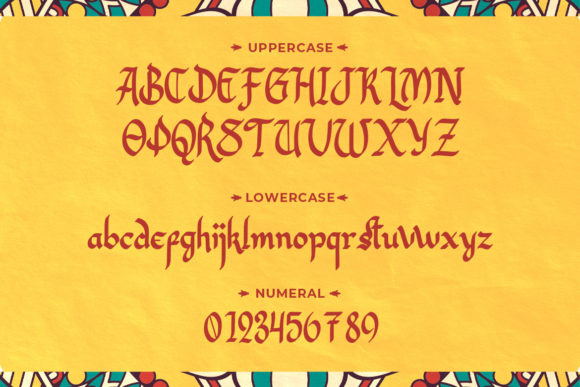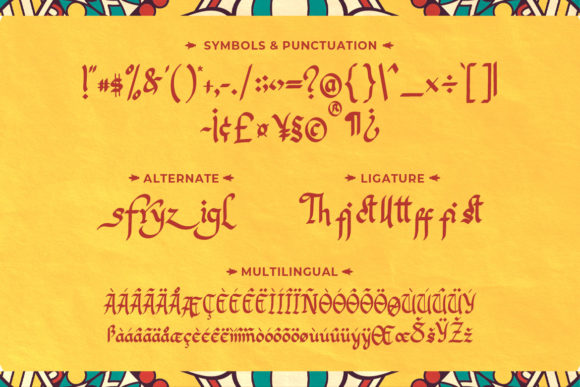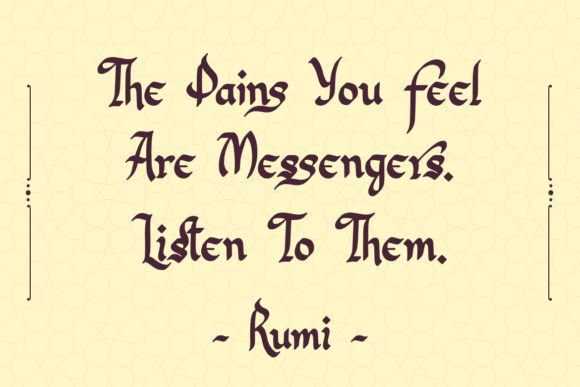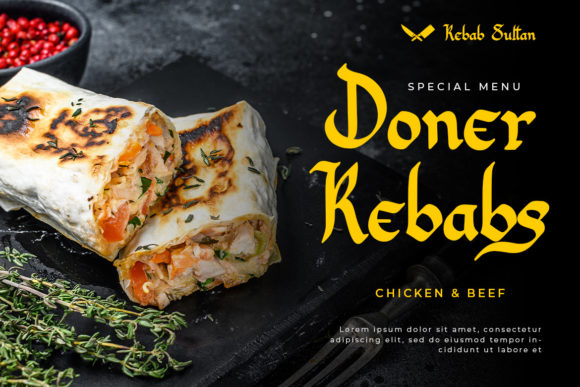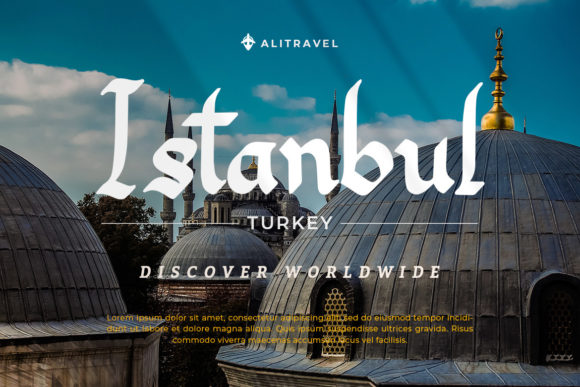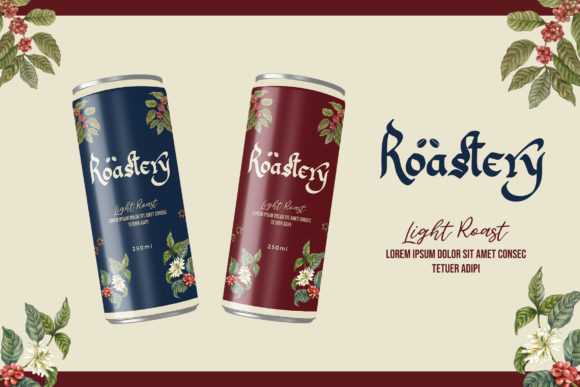
Introduction to King Malik Font
Have you ever stared at a blank page, surrounded by scribbled ideas and half-finished sketches, waiting for that one spark to ignite your creative project? For designers, finding the perfect font can be the difference between a mediocre design and a masterpiece. That’s where King Malik Font comes in – a stunning display font that embodies the essence of Turkish culture and style.
This high-quality font is not only a valuable design resource but also a free download, making it accessible to creatives of all levels. With its unique aesthetic, King Malik Font is perfect for branding logos, themes, and any other project that requires a touch of sophistication. Plus, its transparent background allows for seamless integration with any design element, making it a versatile choice for designers who demand the best.
Key Features of King Malik Font
- High-quality, professional font design for creative projects, available for free download.
- Unique, elegant script font with a transparent background, perfect for adding a touch of sophistication to your design.
- Designed to be versatile and easy to use, making it a valuable design resource for professionals and hobbyists alike.
- Can be used for a variety of creative projects, including logos, invitations, and other graphic design elements.
Honest Review: King Malik Font
One of the standout features of the King Malik Font is its high quality, which makes it suitable for a wide range of creative projects. The font’s design is quite unique, with a bold and modern aesthetic that’s perfect for adding a touch of sophistication to your design.
- ✨ High-quality design that’s suitable for various creative projects
- ✨ Unique and modern aesthetic that’s perfect for adding a touch of sophistication
- ⚠️ Limited font weights and styles, which may limit its versatility
- ⚠️ Not all characters have a transparent background, which may cause issues with design composition
Overall, I’m impressed with the King Malik Font’s design and its potential uses in creative projects. While it has some limitations, it’s still a valuable resource for designers looking for a high-quality, free font.
Tips for Getting the Most Out of King Malik Font
King Malik Font is ideal for a variety of design projects, including brochures, flyers, business cards, and social media graphics. Its high-quality design makes it perfect for creative projects requiring a unique and eye-catching font.